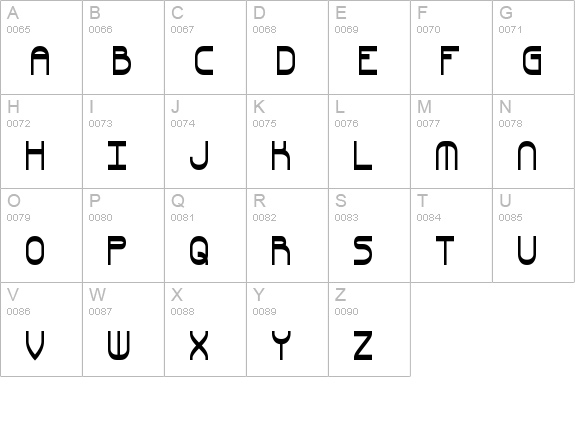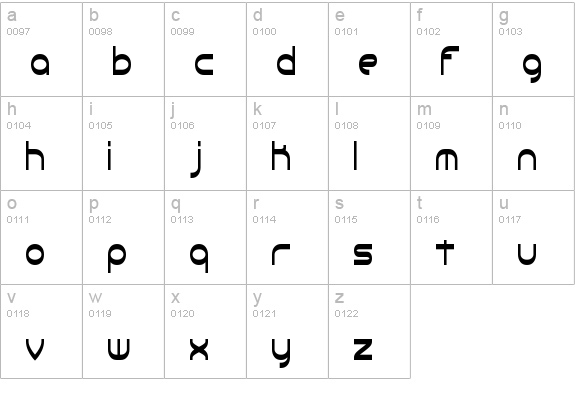
Quacksalver BRK Font Details
Introducing the mesmerizing Quacksalver BRK font, a true masterpiece in the world of typography. With its captivating curves and bold strokes, this font is sure to make a lasting impression. The Quacksalver BRK font exudes a sense of elegance and sophistication, perfect for adding a touch of class to any design project. What sets this font apart is not just its impeccable design, but also the fact that it is absolutely free! Yes, you read that right. Quacksalver BRK font is freely available to download at FontsMarket.com, making it accessible to everyone, regardless of their budget. Whether you're a professional designer looking to add a unique flair to your creations or a casual user in need of a stunning font for personal projects, Quacksalver BRK font has got you covered. Its versatility allows it to shine in various contexts, from logos and branding to invitations and social media graphics. The Quacksalver BRK font is a true game-changer, offering a seamless blend of style and usability. Its legibility ensures that your message is conveyed effortlessly, while its distinctive character adds a touch of creativity and personality. Don't miss out on the opportunity to enhance your design arsenal with this extraordinary font. Download Quacksalver BRK font for free at FontsMarket.com and witness the magic unfold. Let your imagination run wild and create stunning designs that will leave a lasting impression.